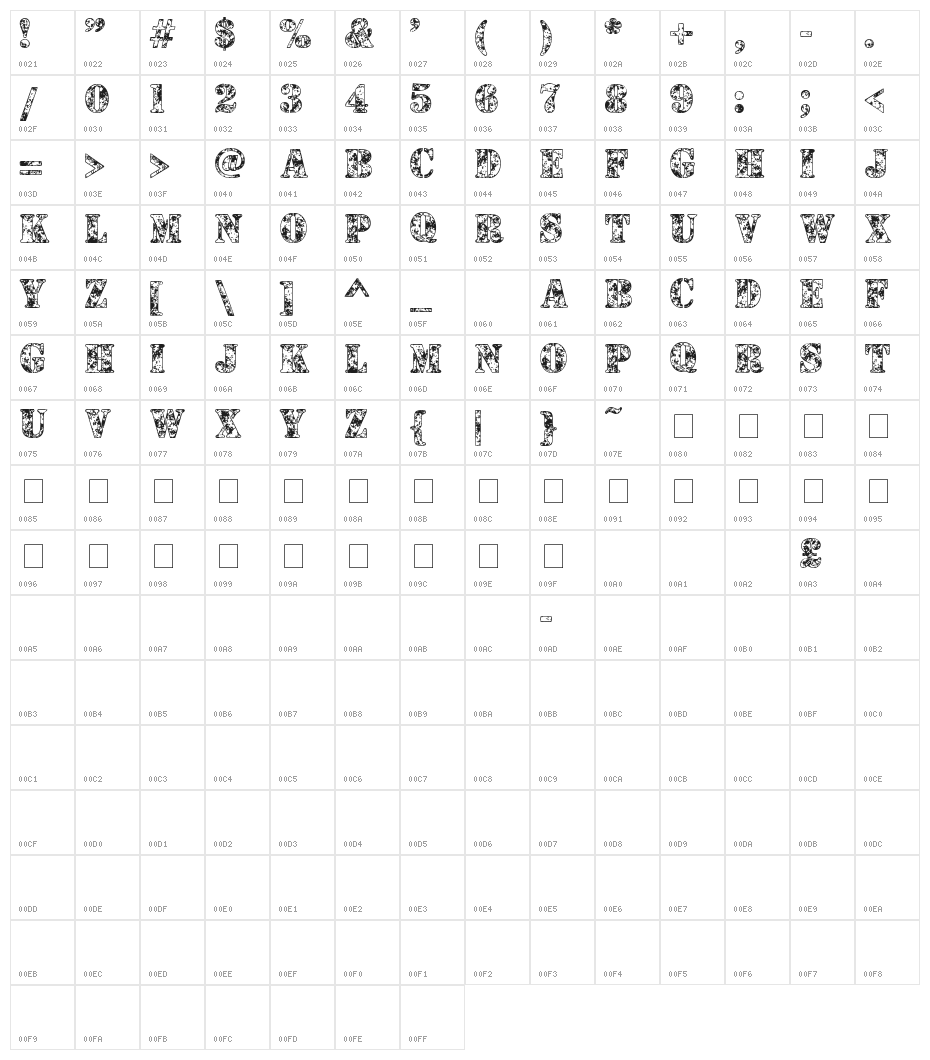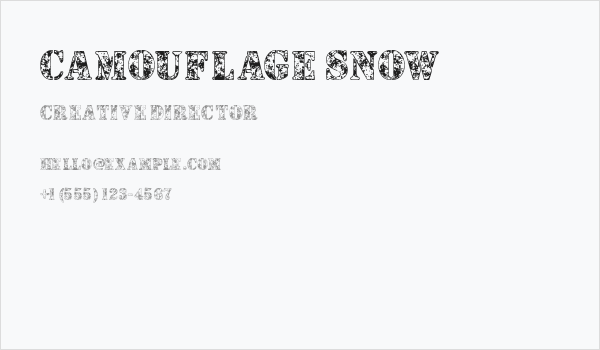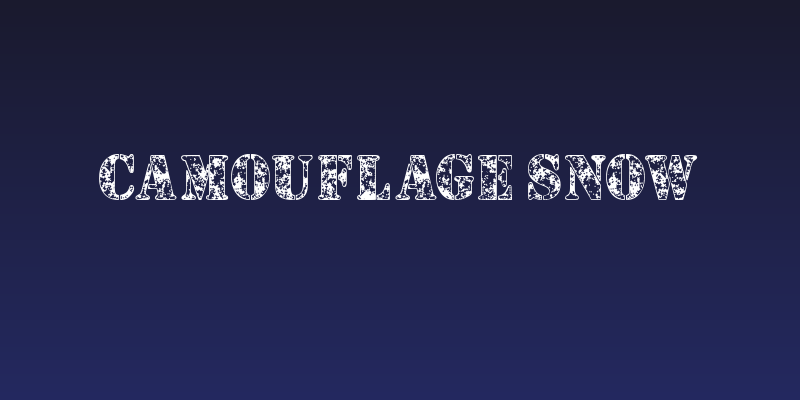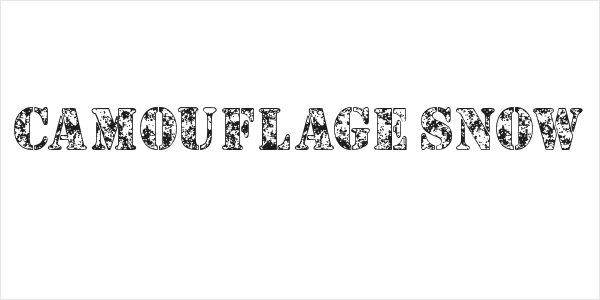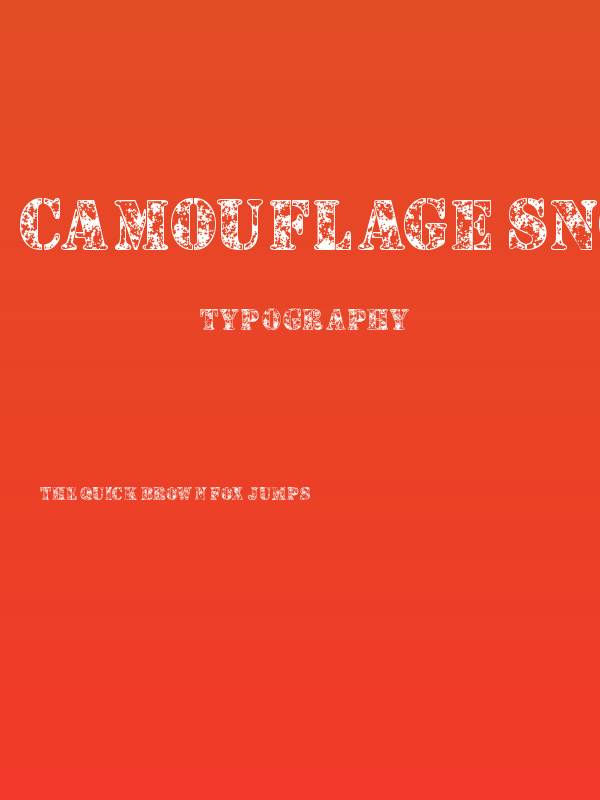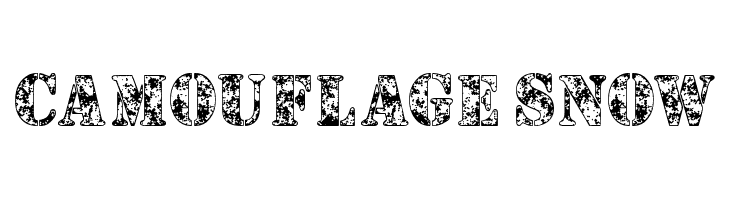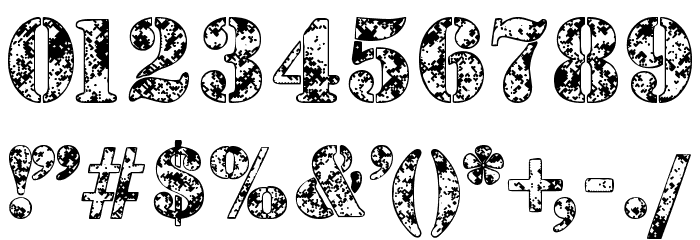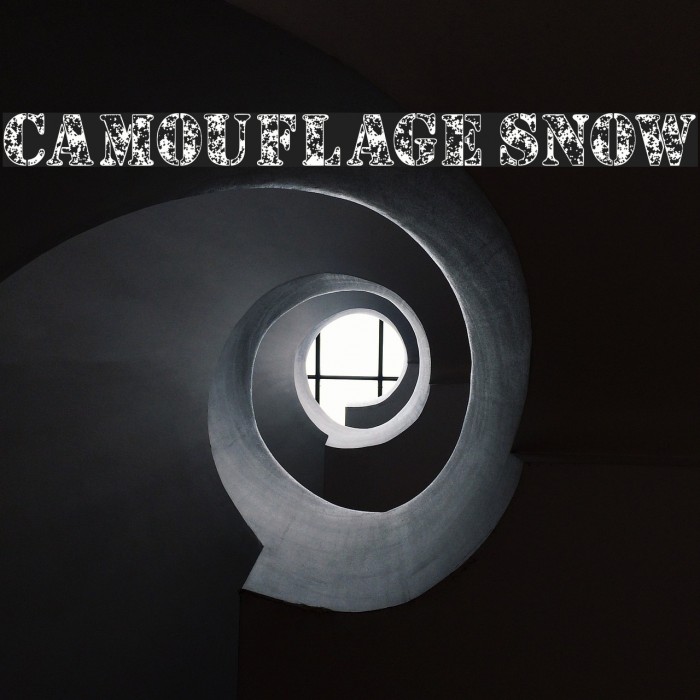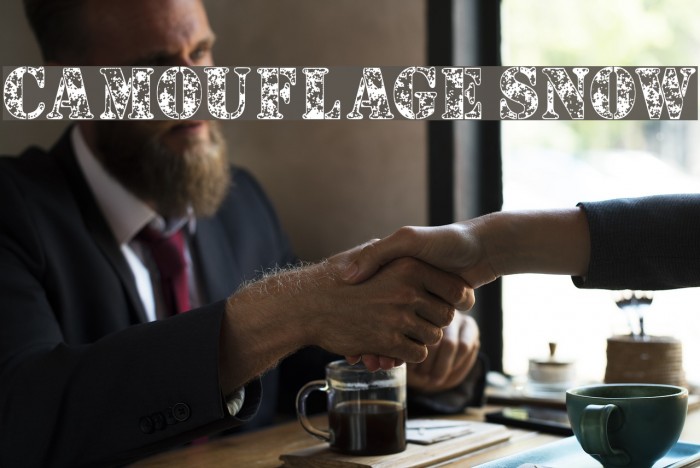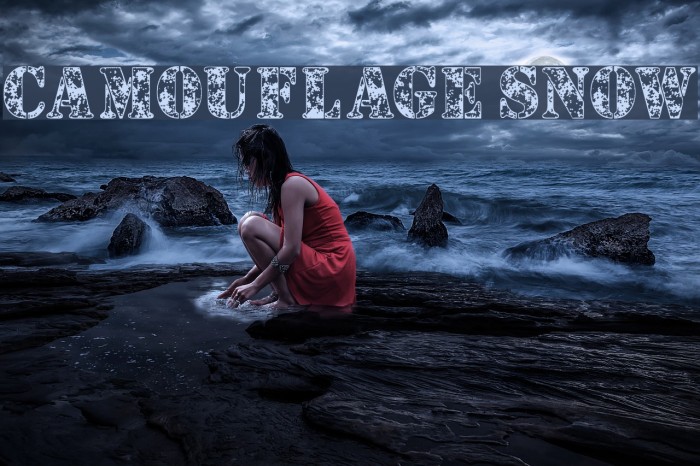
Camouflage Snow Font
Camouflage Snow Description
This font features a unique camouflage pattern within each character, giving it a rugged and textured appearance. The design incorporates a mix of black and white elements, creating a striking contrast that enhances its visibility. Each letter and number is bold and substantial, making it ideal for attention-grabbing designs. The font maintains a consistent style across uppercase, lowercase, and numerical characters, ensuring uniformity in any project. Special characters are also included, each with the same distinctive pattern, adding versatility to its use.
| Proposed Projects | Ideal for military-themed designs, outdoor adventure branding, or any project requiring a bold, eye-catching typeface. |